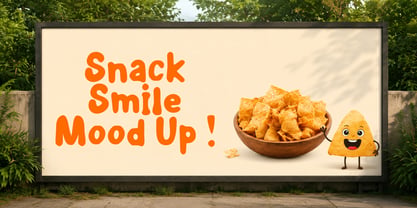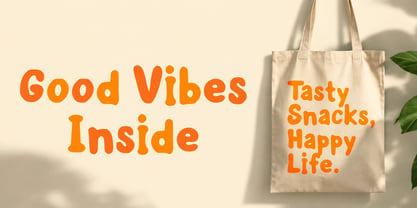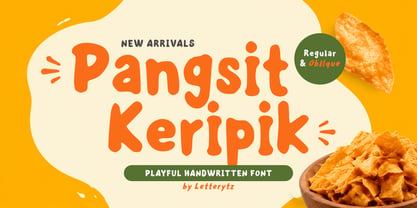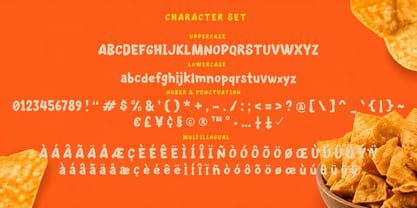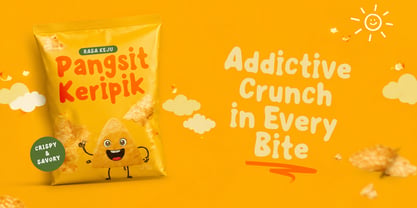
Pangsit Keripik
par Letterytz CalliType
La famille de polices Pangsit Keripik a été conçue par Wahyu Eka Prasetya, Dian Angga Marytama et publiée par Letterytz CalliType. Pangsit Keripik contient 2 styles et options de package familial. En savoir plus sur cette famille
Pangsit Keripik is a playful handwritten display font inspired by fun snack packaging, children’s products, and cheerful branding. Featuring chunky, rounded letterforms with a warm handcrafted feel, this font brings a friendly, energetic, and approachable personality to any design. Perfect for food packaging, kids’ projects, logos, posters, social media graphics, product labels, invitations, and creative branding. Pangsit Keripik delivers a charming handmade touch while maintaining excellent readability and visual appeal.
Features:
• Uppercase & Lowercase Characters
• Numerals & Punctuation
• Multilingual Support
• Stylistic Handwritten Look
• Easy-to-Read Display Design
• Regular Style
• Oblique Style